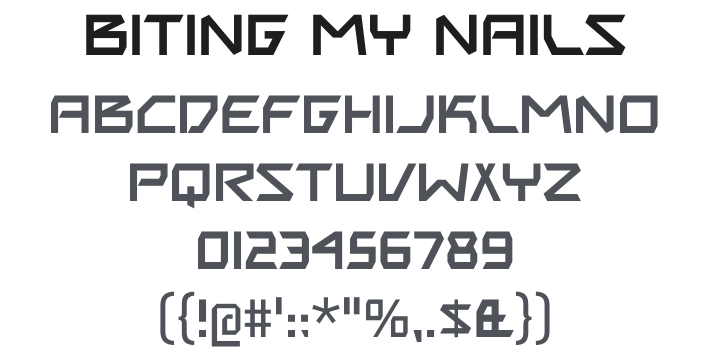
Biting My Nails Font Family
About Biting My Nails
Biting My Nails is a sharp, angular techno typeface with a cold, mechanical precision — as if designed for stamping serial numbers onto robots. Its jagged geometry gives it a sci-fi industrial edge. Available in solid and outline variants, it works well for science fiction interfaces, robotics branding, cyberpunk game titles, tech posters, and futuristic UI design.